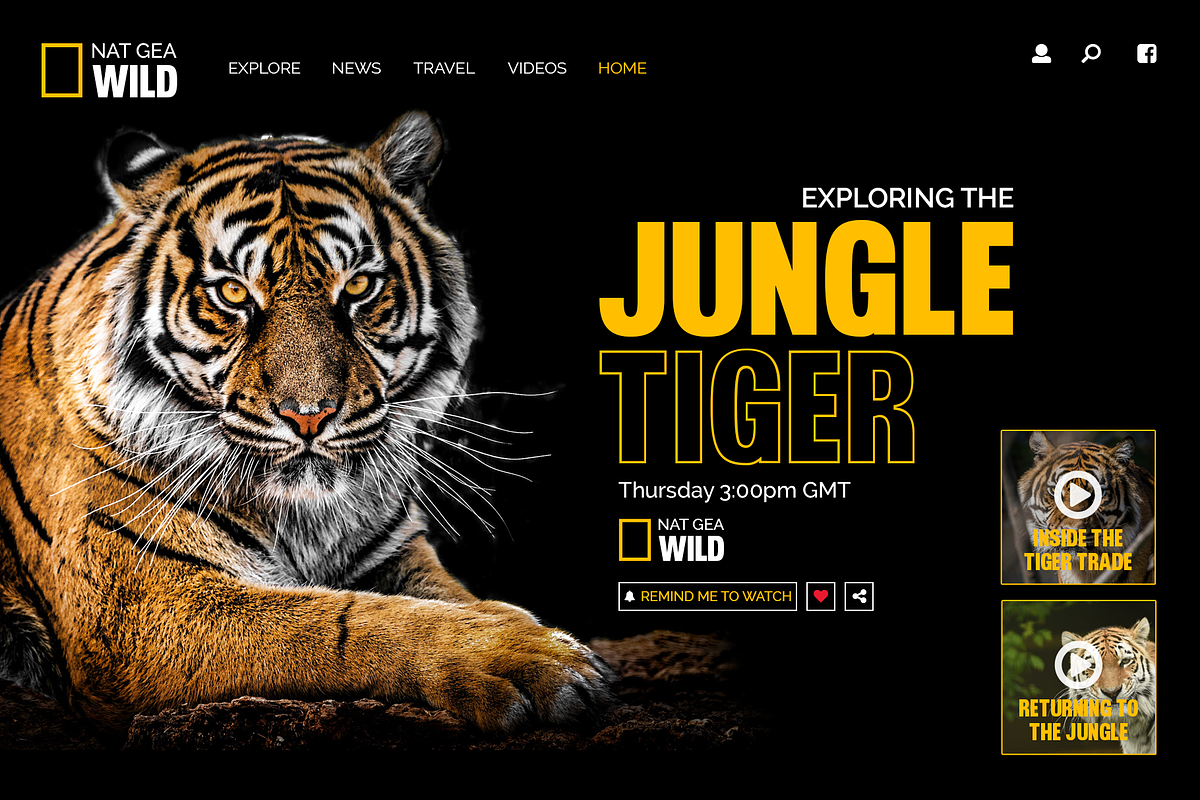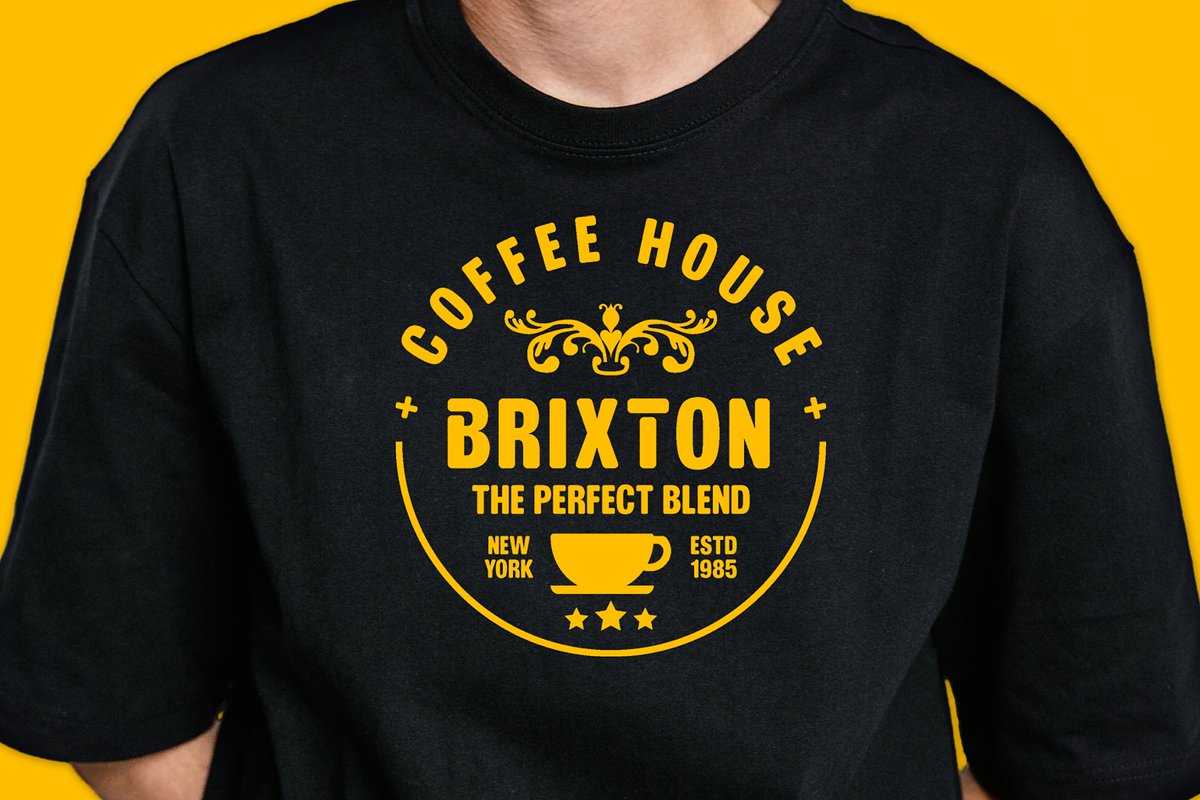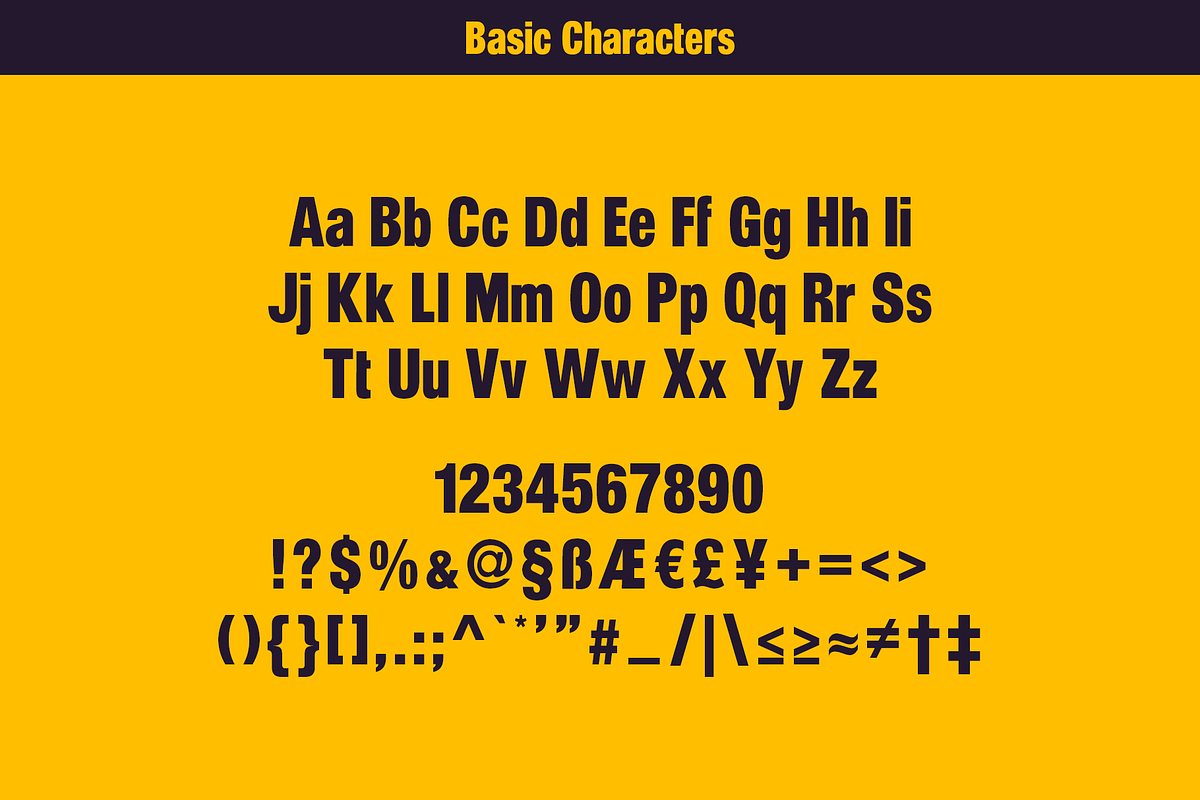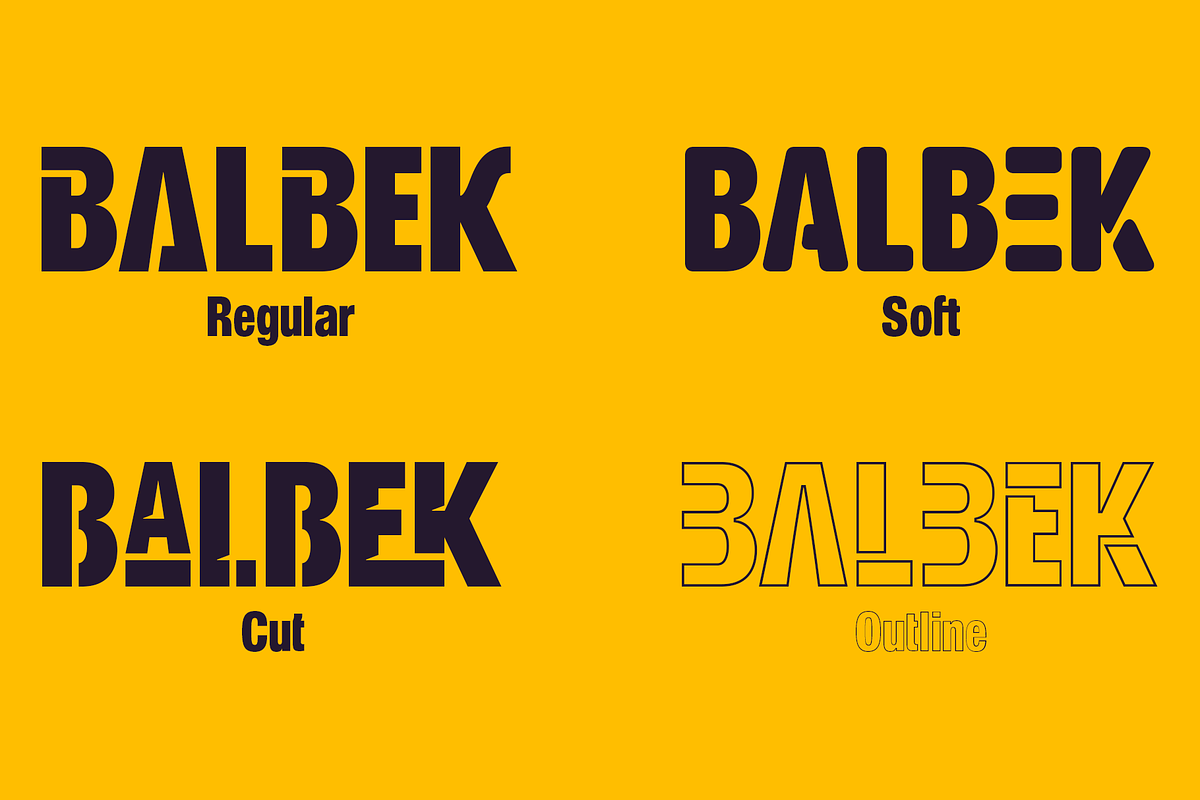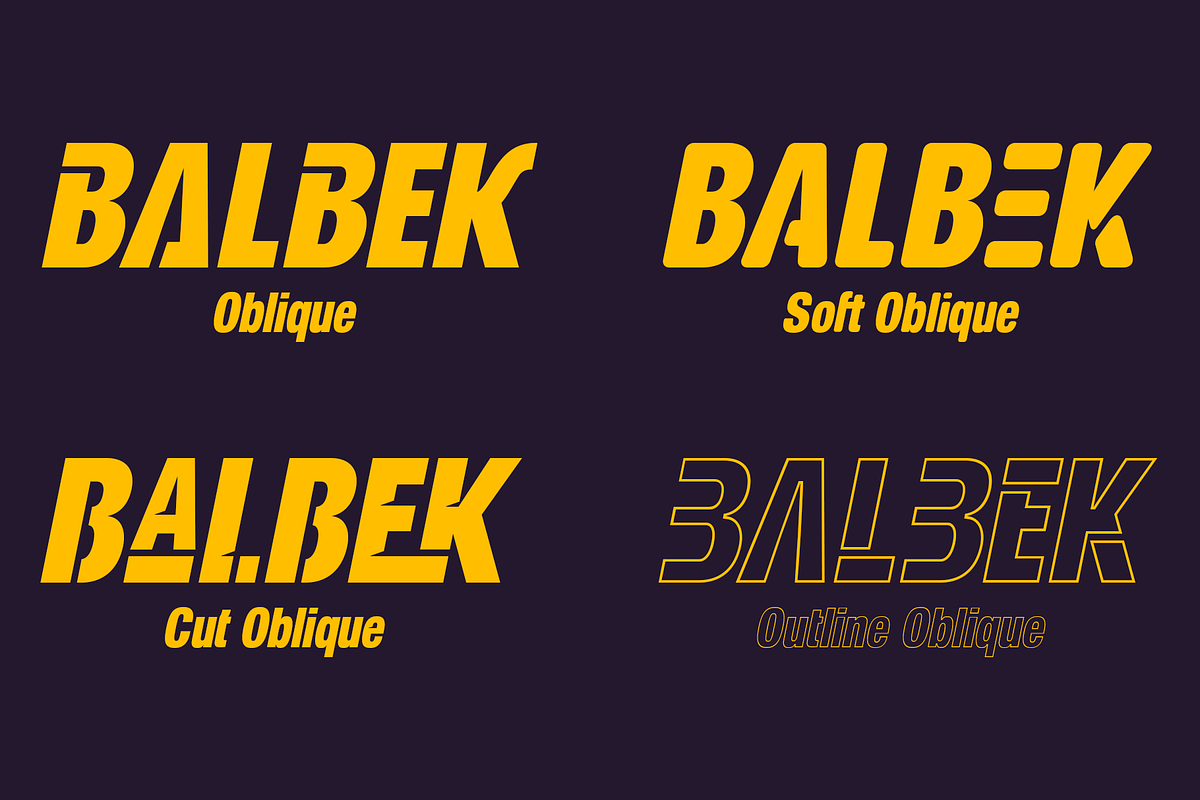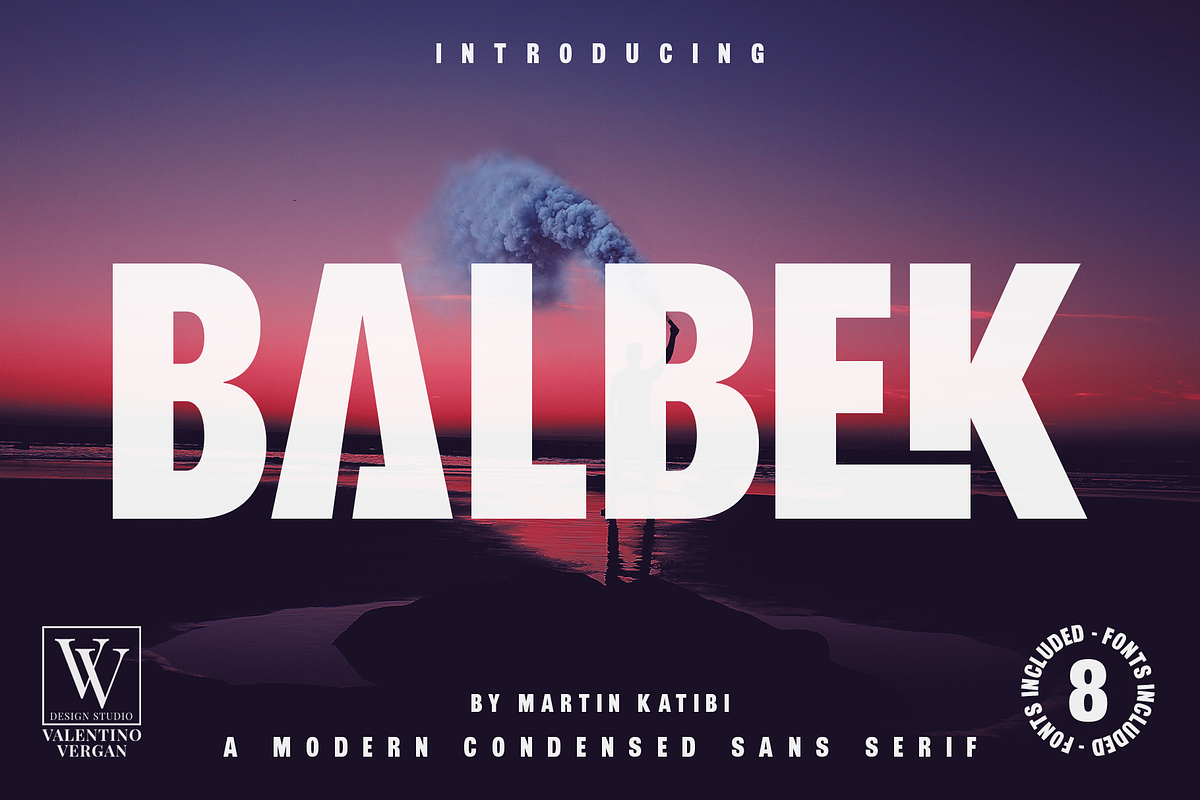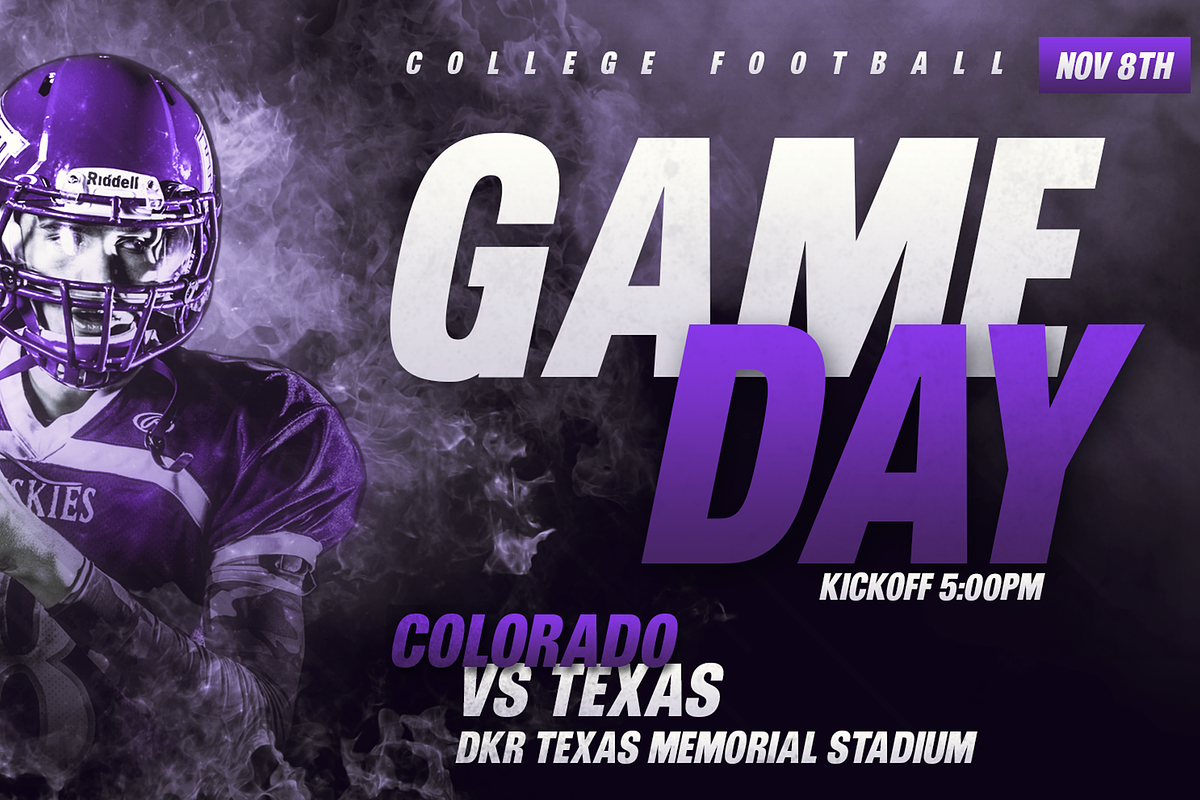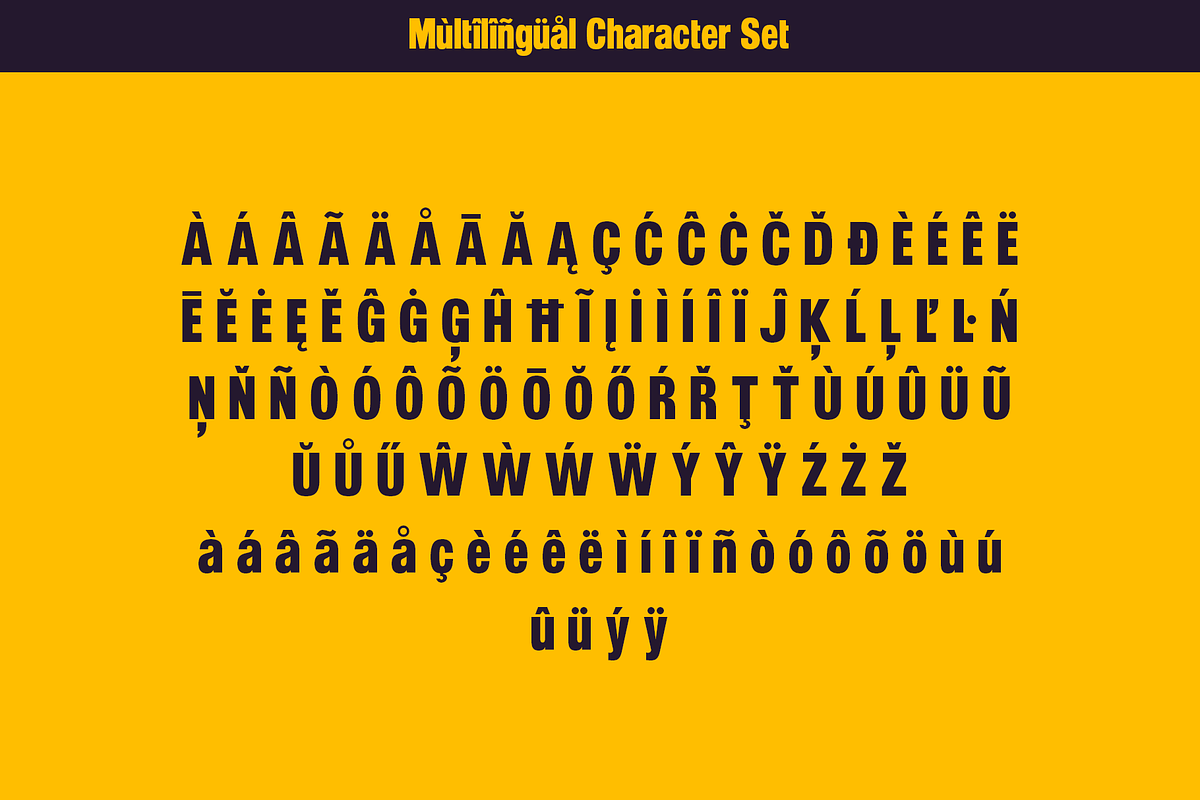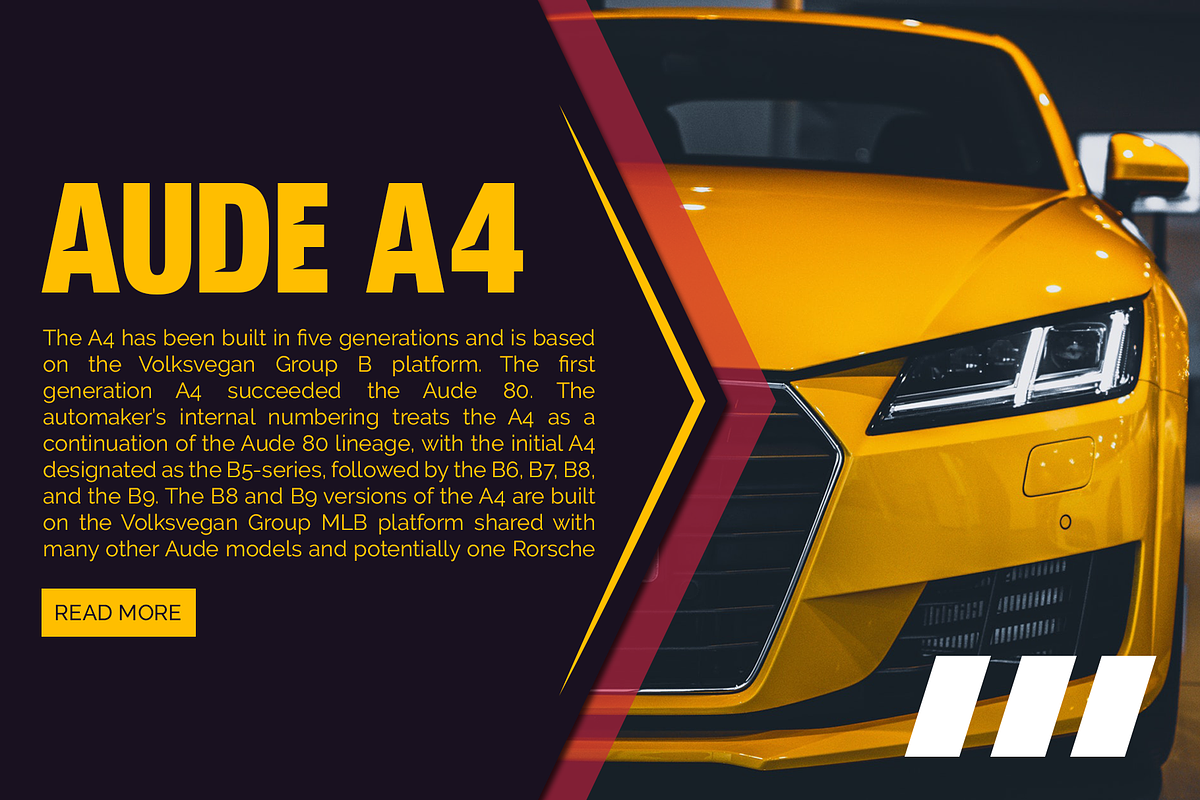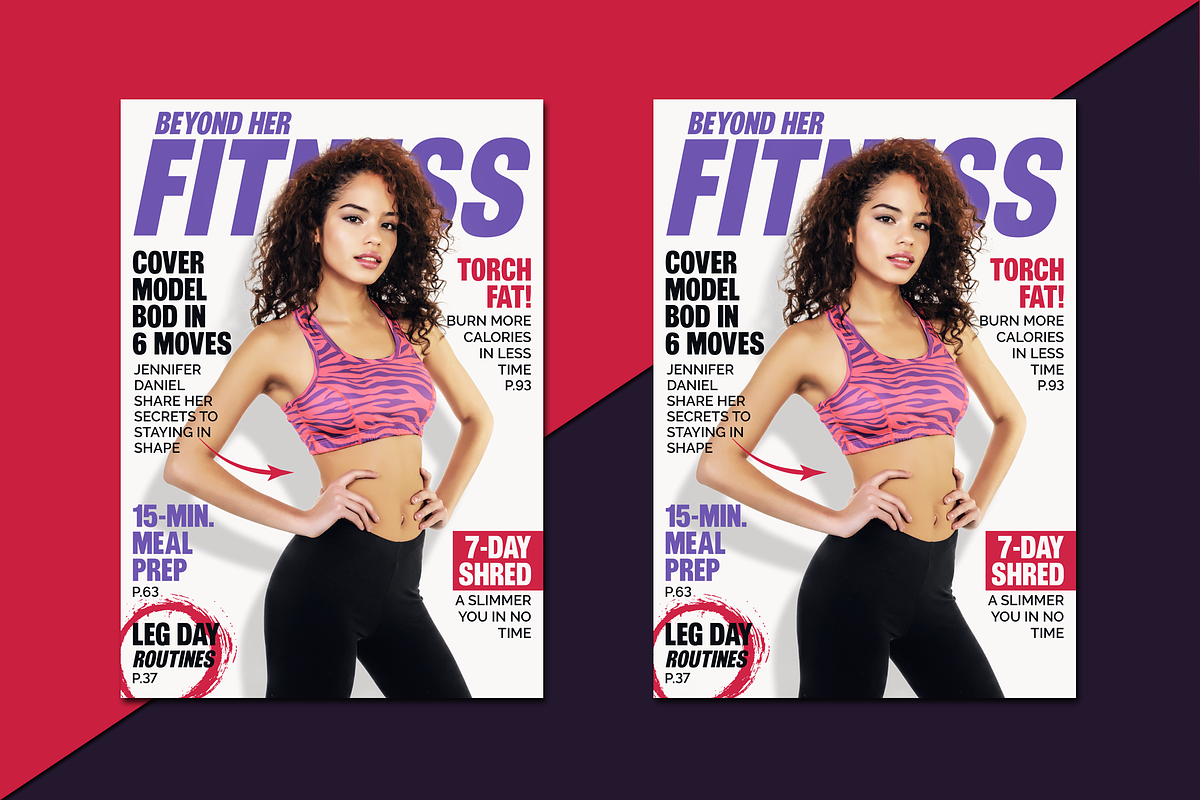
Balbek - Condensed Sans Serif
Introducing “Balbek” – A modern “condensed” sans serif ligature typeface.
Designed by graphic designer Martin Katibi. The balbek font is an eye catching heavy and condensed sans serif typeface. The inspiration for this font were other condensed sans serif such as Gabo Drive and Impact.
The Balbek font is great for use on headlines, advertisements, product packaging, newspapers and posters. Balbek fully supports multilingual characters, it also come with a full set of alternative uppercase letters, ligature and small cap. All these features will make your next project standout.
The font comes in eight styles, which are Regular, Cut, Outline and Soft. Each of these font styles comes with an oblique version.
If you are looking for something modern and eye catching for you next project, Balbek is the font for you.
BALBEK INCLUDES A FULL SET OF:
- Uppercase and lowercase letters.
- Numbers.
- Punctuation.
- Ligatures.
- Alternates.
- Small Caps.
- Multilingual symbols.
Here is a short list of some of the unique ligatures: AB AD Æ AF AH AK AL AM AN AP EH EK EM ET FT HE LH LK LM MB MD ME MM MP NE NN Œ TE TH TT TU THE Th ZH ZK ZM æ ff fj fi fl ft ij œ tt ty